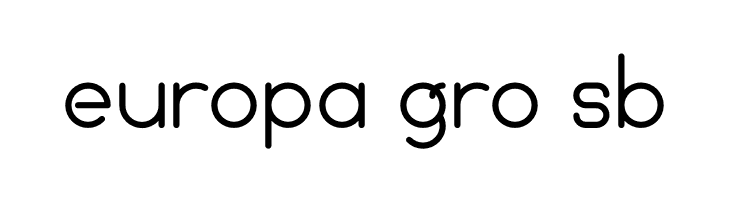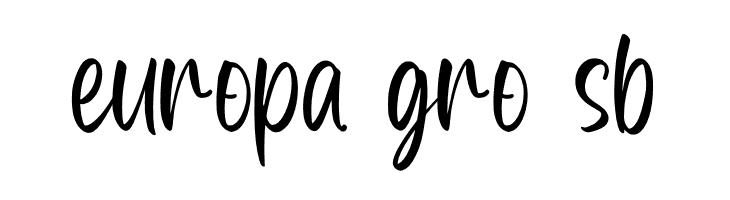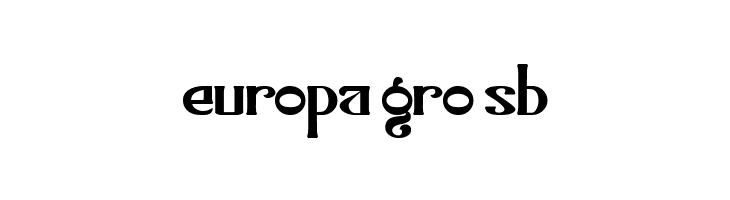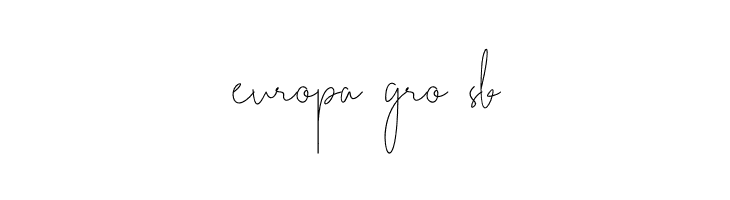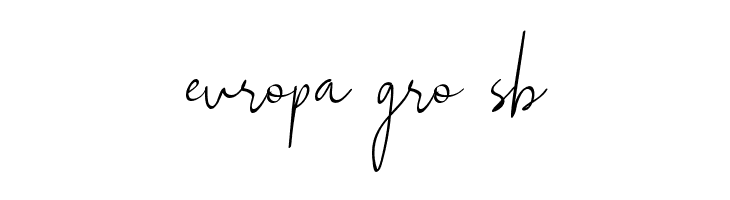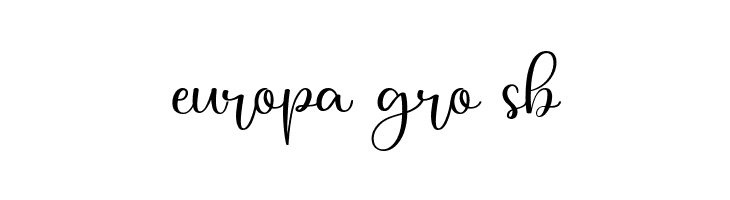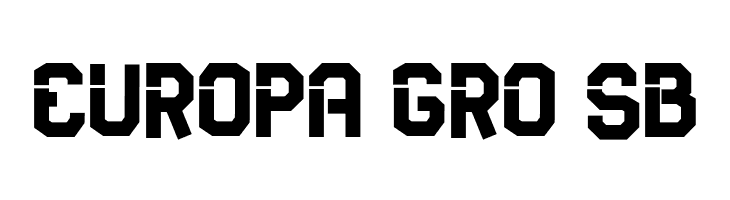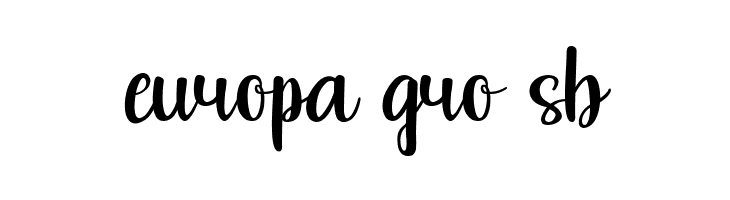
A modern, rounded font with a clean, geometric style.
A playful, handwritten script font with bold, fluid strokes.
A bold, decorative font with high contrast and artistic flair.
A bold, playful font with thick strokes and a slightly condensed style.
A delicate, handwritten font with elegant, flowing lines and a whimsical touch.
A lively, handwritten-style font with fluid, slightly irregular strokes.
A whimsical script font with elegant, flowing letters and delicate strokes.
A playful and whimsical script font with elegant curves and decorative flair.
A lively and expressive script font with bold, flowing letterforms.